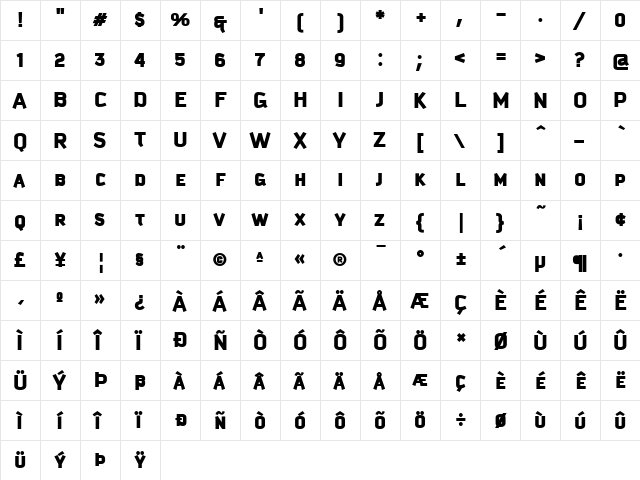
Kautiva Caps Black Regular
Design Context for Kautiva Caps Black Typeface
Kautiva Caps Black takes a measured approach to typography — its balanced proportions and neutral character make it a reliable workhorse for both digital and print work.
Pro Tip: Use Kautiva Caps Black in both headline and body roles to test its range before committing to a single application.